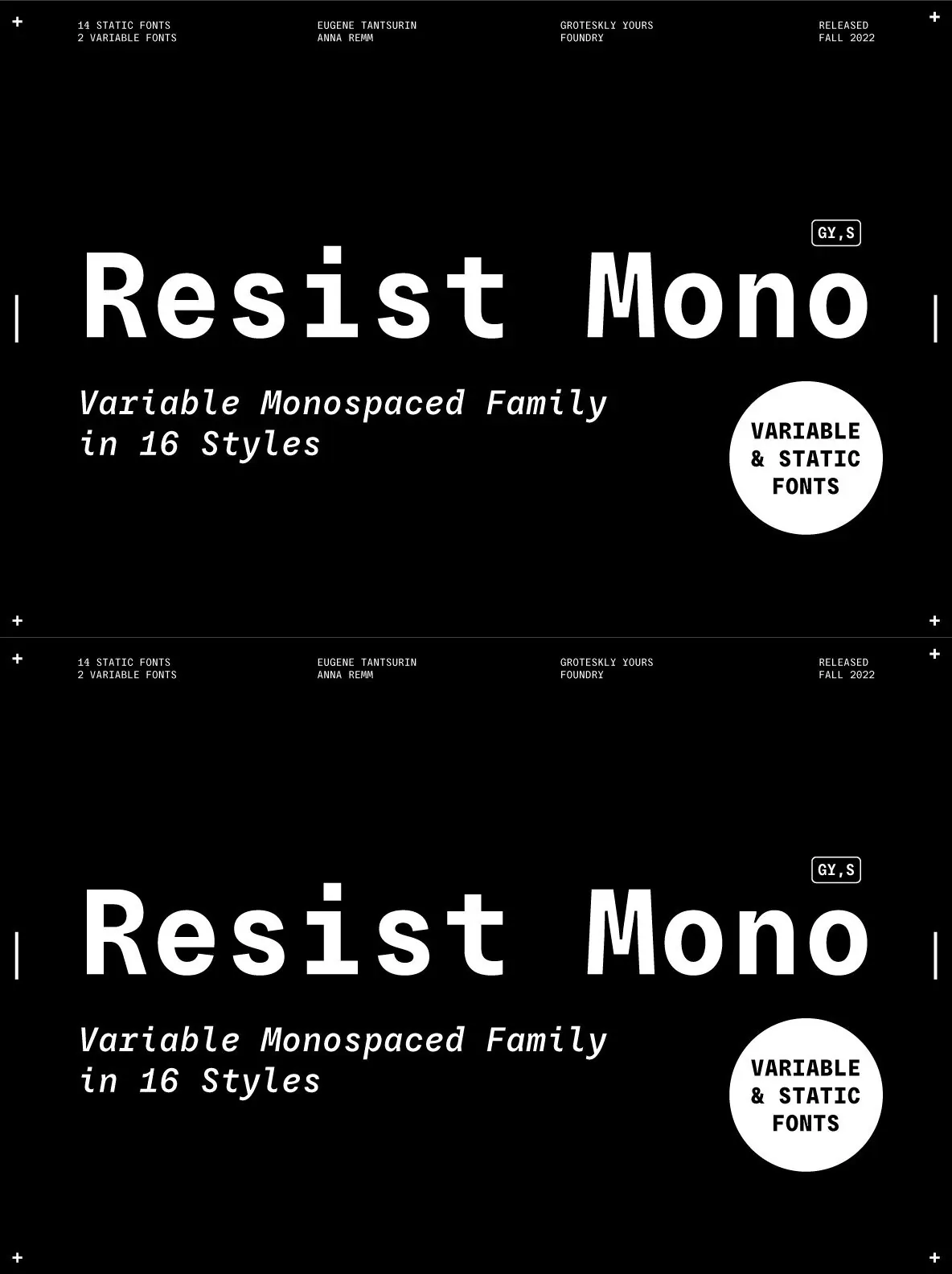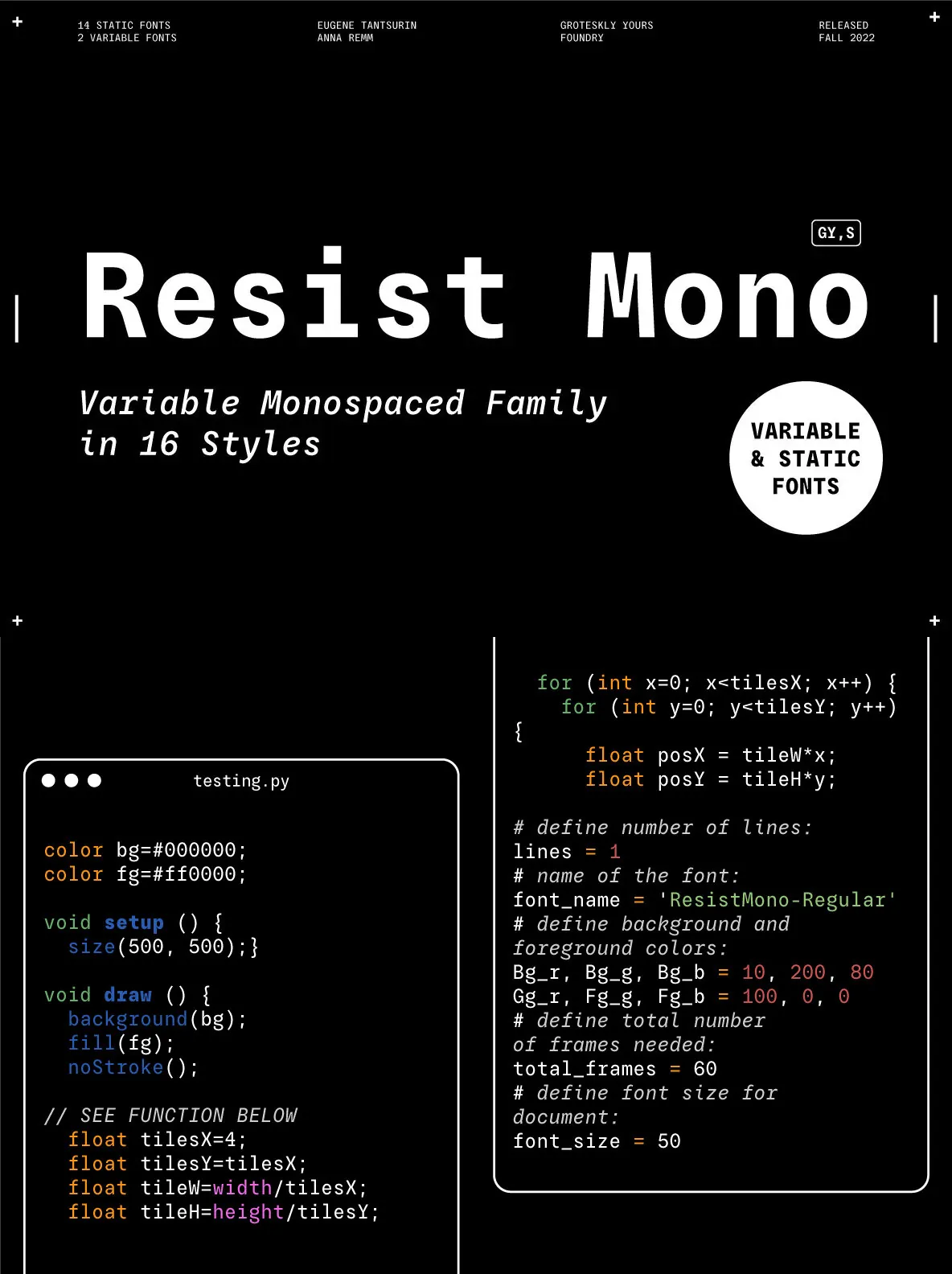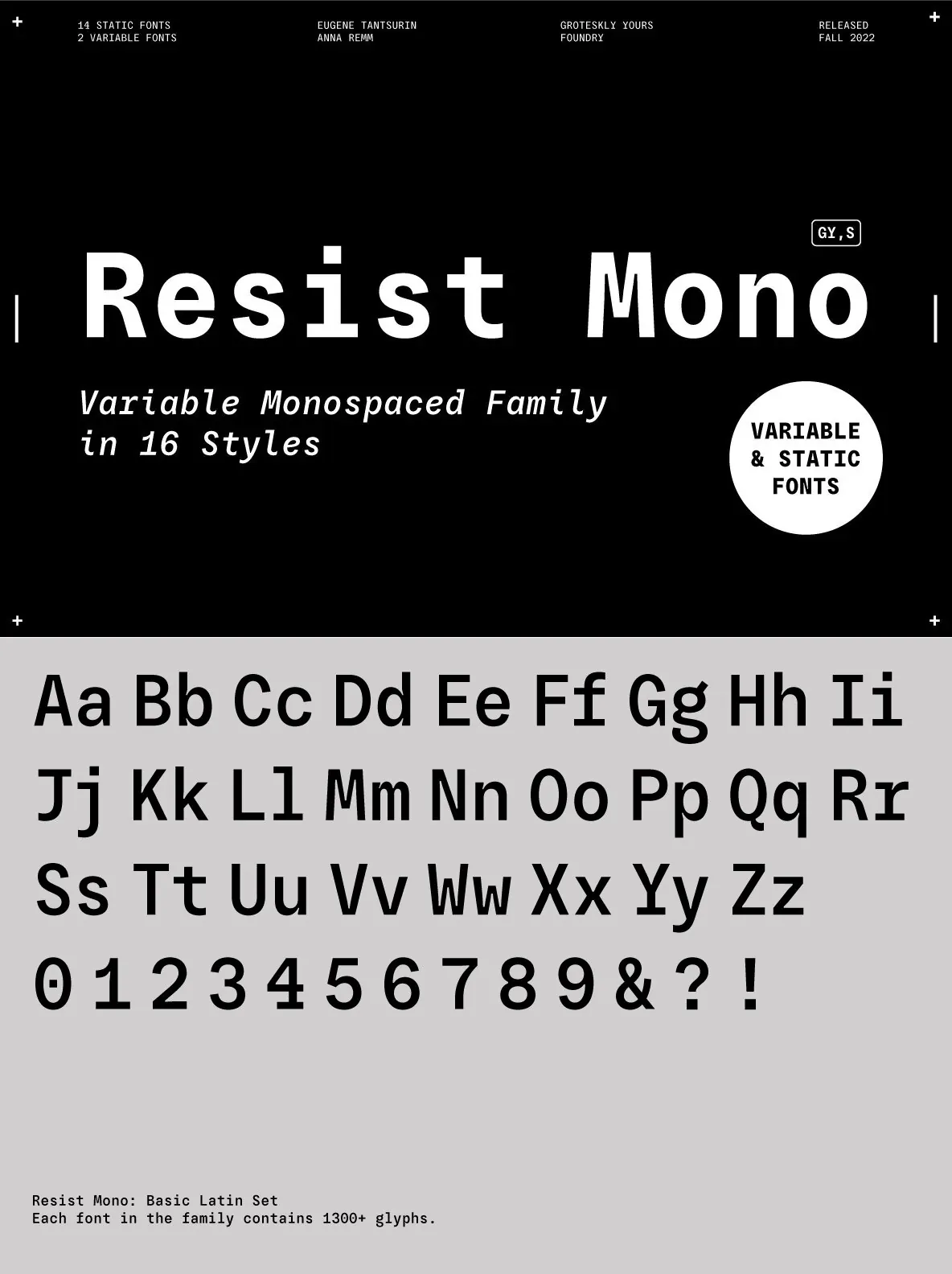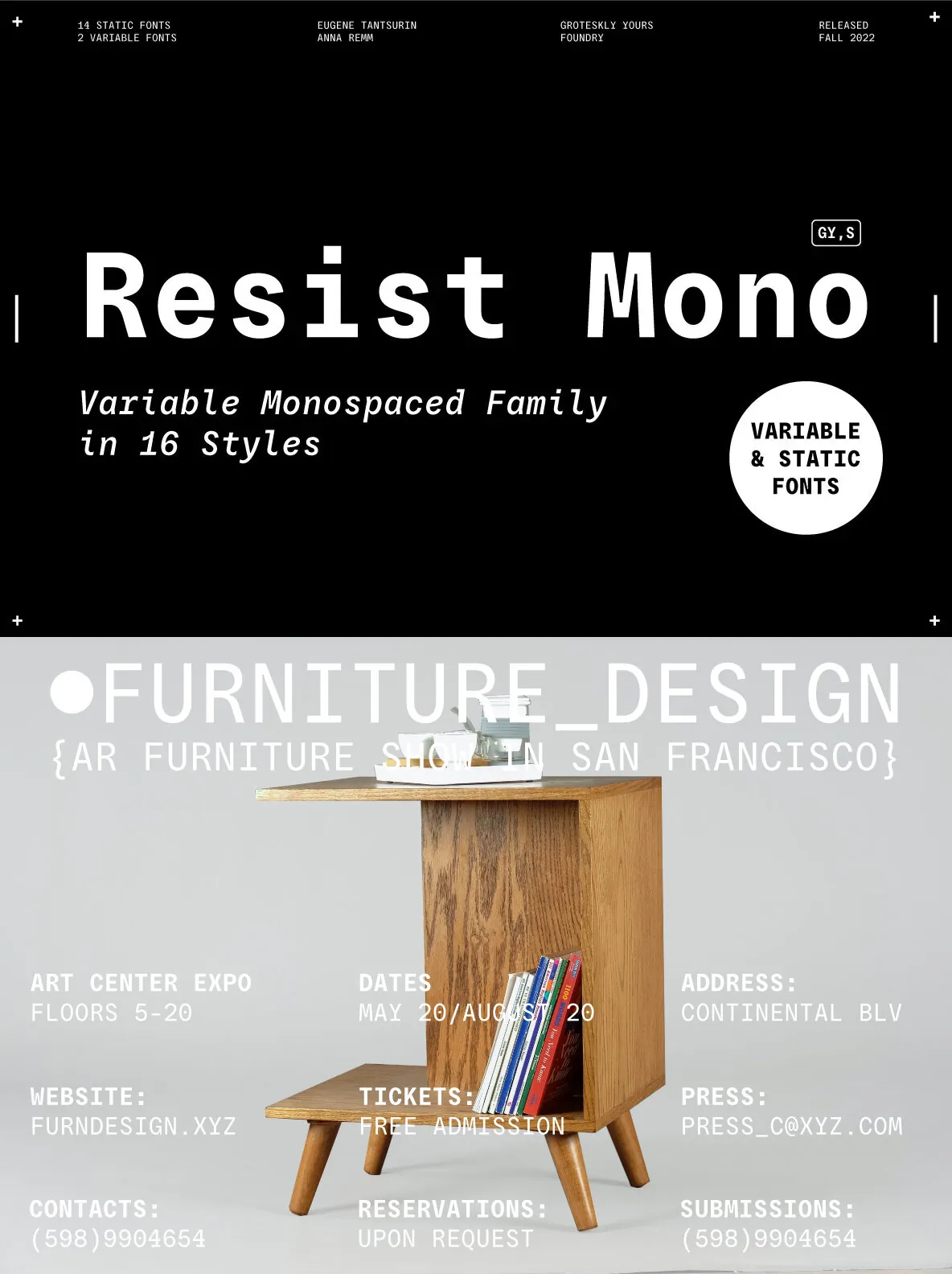
Resist Mono — Clarity for Code and Layout
Resist Mono is a monospaced font built for clarity and day-to-day function. Based on the visual identity of its predecessor, Resist Sans, it uses deep inktraps, angled terminals, and strong legibility to stay crisp across coding and contemporary graphic work. At small sizes, it keeps clear glyph separation, which supports steady reading in technical environments and tight UI settings. Its confident character reads as distinctive in both digital and printed use, without losing the practical rhythm designers and developers expect from a mono.
Designed for versatility, Resist Mono includes a comprehensive character set for broad use. It supports more than 200 languages, including extensive Cyrillic scripts, for reliable international typography. True italics offer a more expressive alternative to common slanted styles and give designers more precise control. Powerline symbols and extensive OpenType features—including small capitals, stylistic alternates, and specialized punctuation—support detailed typographic tuning for code editors, interfaces, web design, and editorial layouts.
Features
Over 1,300 glyphs per style, supporting a broad typographic palette
14 styles plus 2 variable fonts for flexible workflows
True calligraphic italics and accessible slanted letterforms
Small capitals and case-sensitive punctuation for advanced setting
Supports over 200 languages (Latin and Cyrillic scripts)
Specialized symbols, including Powerline icons for coding
Extensive OpenType features such as fractions, ligatures, and stylistic alternates